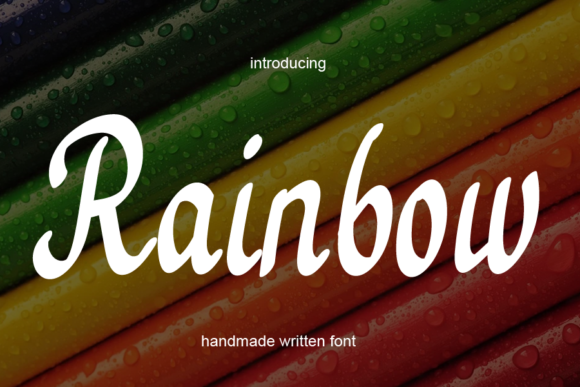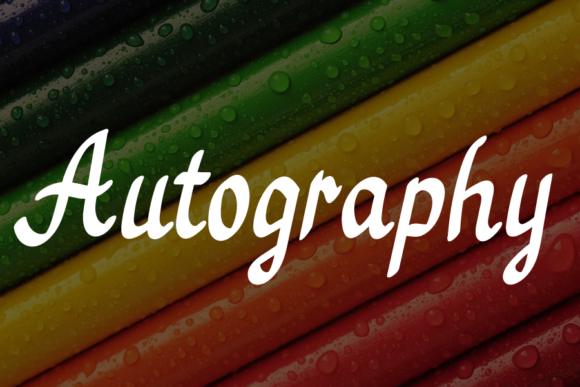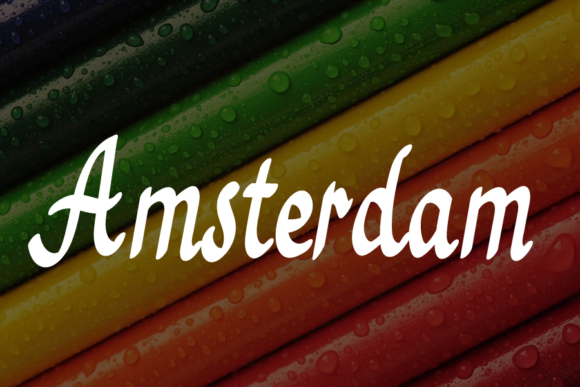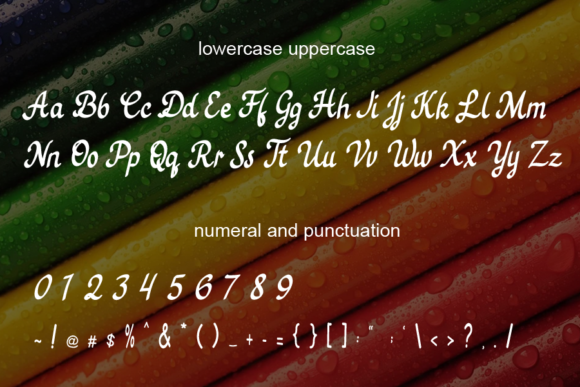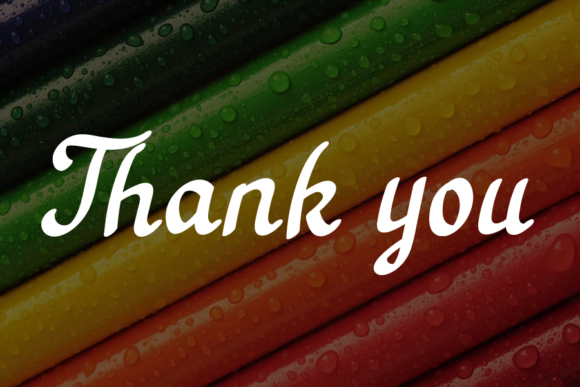
Rainbow Font
About Rainbow Font
Rainbow is an elegant script font. Fall in love with its completely different and timeless style and use it to create spectacular designs! It will add a gorgeous spark to any design project that you wish to create!